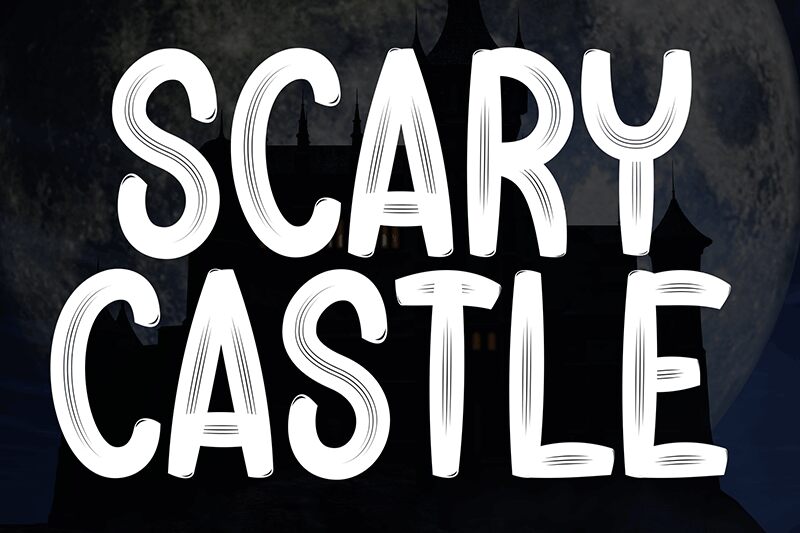
Scary Castle
Scary Castle font by Andi Moz is a brush typeface that is playful with an ominous twist. Enjoy the best of both and experiment with the condensed font and its quirky design. Its characters carry a textured look, one that brings out some “cardboard cutout” effects for an imperfect alignment and vintage feel.
Use Scary Castle to have some fun personalizing Halloween dinner invitations, posters, text stickers, or even bandanas for dogs! Although you might have to readjust its size when used on the colored cover of classic books for kids like Goosebumps, comics, card games designs, and stationery items (printed or digital).